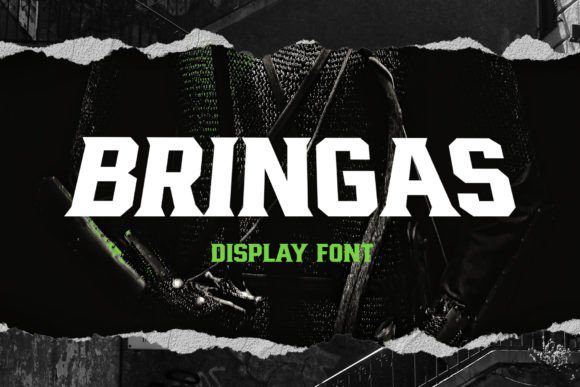
Bringas Font: The Ultimate Slab Serif Font for Bold Designs
In the world of typography, fonts play a crucial role in conveying the tone and personality of a design. When it comes to creating bold and powerful designs, the right font can make all the difference. Introducing Bringas, a strong slab serif font that beautifully blends the influences of 90s typography and vintage design. This font combines techno and sporty styles to create a unique and energetic typeface that demands attention.
The Power of Bringas Font
Bringas is the epitome of power and manly, emanating strong and powerful vibes. With its bold lines and confident letterform, it adds a touch of sportiness to any project. Whether you’re designing a poster, sports jersey, sticker, logo, signage, banner, or display, Bringas is the perfect choice. This font is designed to make a statement, and its bold and energetic vibe is sure to grab the attention of your audience.
Unique Features of Bringas Font
Bringas is an all-caps font with extra special characters and multilingual support, ensuring versatility and accessibility. This font is designed to be used in a variety of contexts, from digital designs to print materials. With its wide range of characters and glyphs, you can create unique and complex designs that showcase your creativity.
• All-caps font: Bringas is an all-caps font that exudes confidence and power.
• Extra special characters: This font comes with extra special characters that add a touch of uniqueness to your designs.
• Multilingual support: Bringas supports multiple languages, making it a versatile font for global designs.
The Benefits of Using Bringas Font
So, why choose Bringas font for your designs? Here are just a few benefits of using this powerful font:
• Attention-grabbing: Bringas is designed to grab attention and make a statement.
• Sporty and energetic: This font adds a touch of sportiness and energy to any design.
• Versatile: Bringas can be used in a variety of contexts, from digital designs to print materials.
• Accessible: With multilingual support and extra special characters, Bringas is an accessible font for designers around the world.
• Glyphs: Bringas font comes with a wide range of glyphs that add a touch of uniqueness to your designs.
• Ligatures: This font also comes with ligatures that create a natural flow between characters.
• Choose the right context: Bringas font is perfect for designs that require a bold and energetic vibe, such as posters, sports jerseys, and signage.
• Experiment with glyphs and ligatures: With PUA encoding, you can access a wide range of glyphs and ligatures that add a touch of uniqueness to your designs.
• Pair with other fonts: Bringas font can be paired with other fonts to create a unique and complex design.
In conclusion, Bringas font is a powerful and energetic slab serif font that beautifully blends the influences of 90s typography and vintage design. With its bold lines and confident letterform, it demands attention and adds a touch of sportiness to any project. Whether you’re designing a poster, sports jersey, sticker, logo, signage, banner, or display, Bringas is the perfect choice. So, why settle for ordinary fonts when you can elevate your designs to new heights with Bringas?